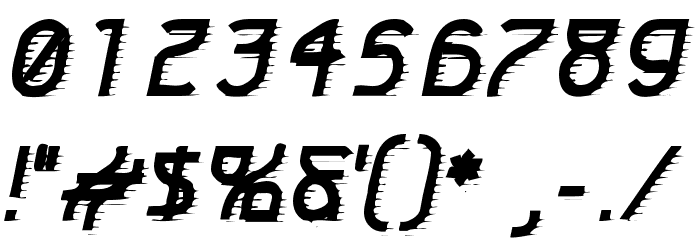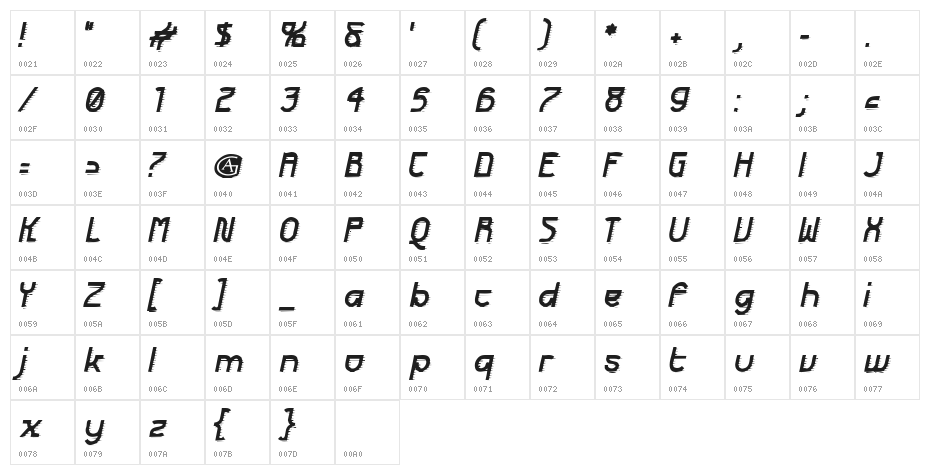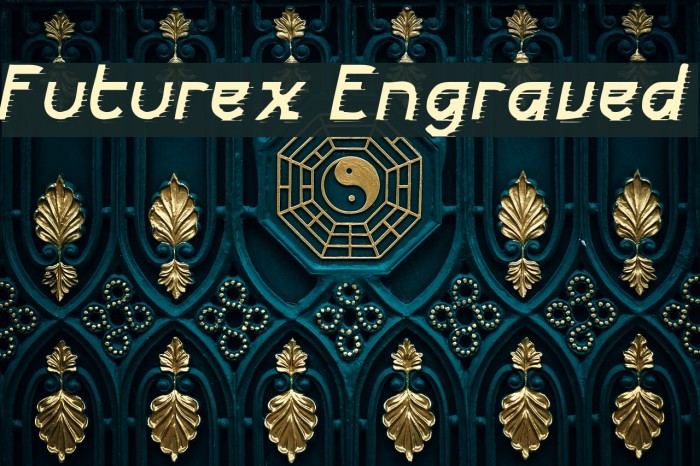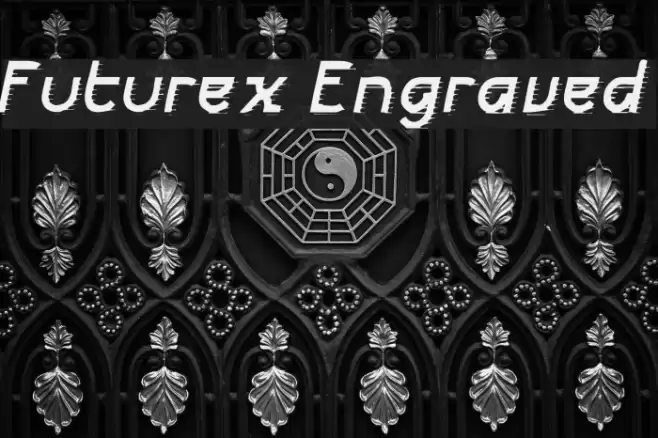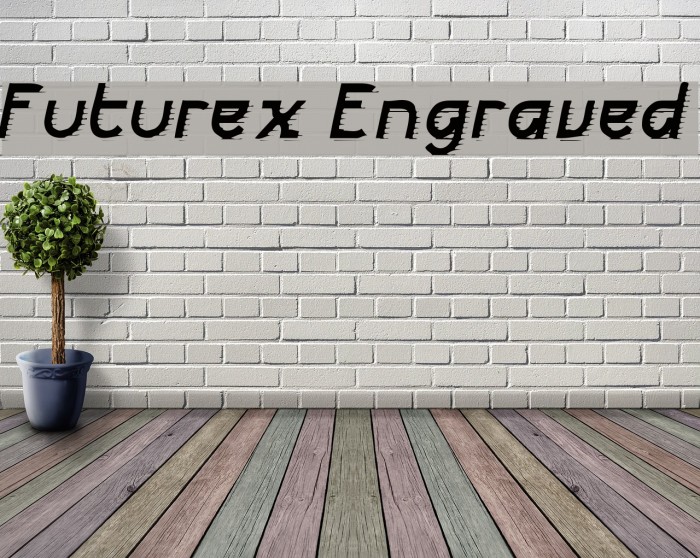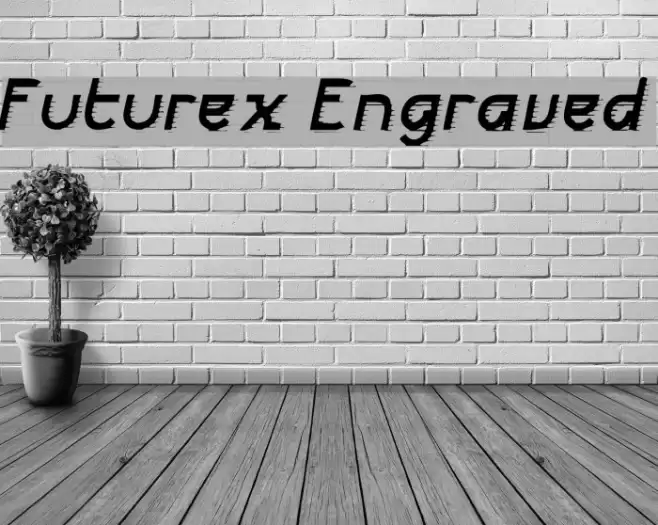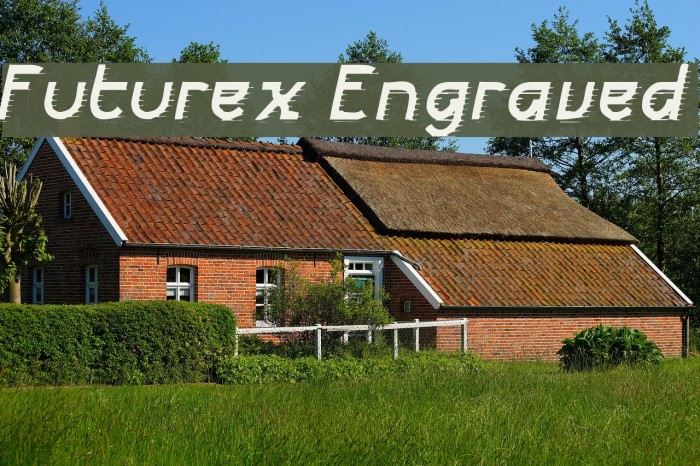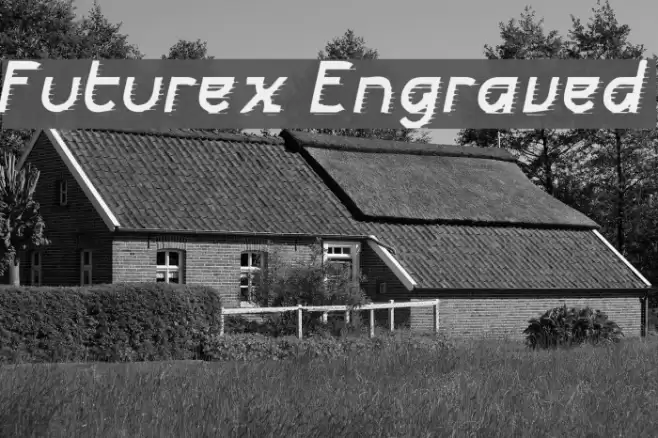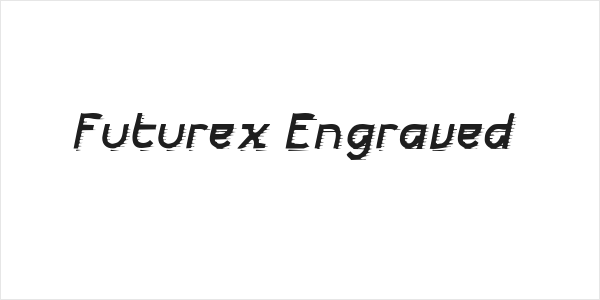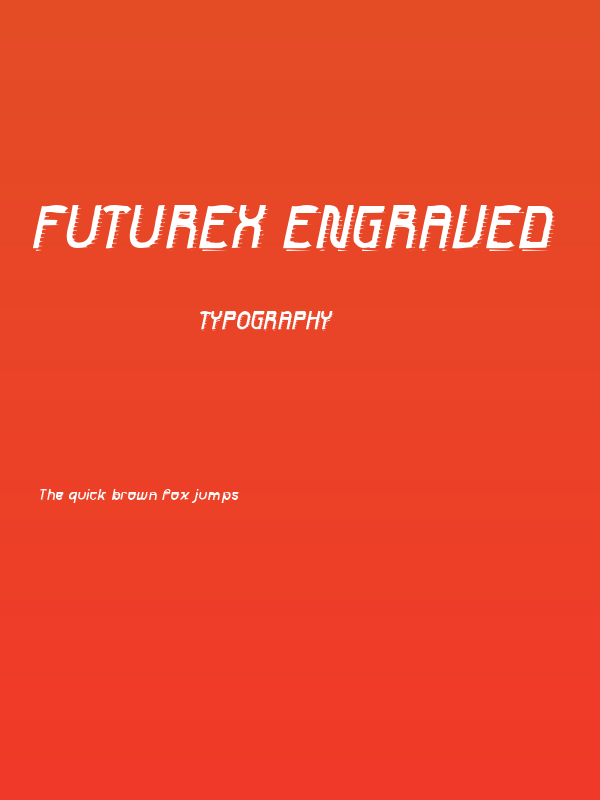
Futurex Engraved Font
Futurex Engraved Description
This font features a dynamic and futuristic design with an engraved effect that gives each character a sense of depth and movement. The uppercase and lowercase letters are crafted with sharp, angular lines that create a sense of speed and modernity. The numbers and special characters maintain this aesthetic, ensuring consistency across all elements. The engraved detailing adds a unique texture, making it stand out in any design. This font is ideal for projects that require a bold and innovative look, capturing attention with its distinctive style.
| Proposed Projects | Ideal for sci-fi themed designs, technology branding, video game titles, and modern advertising. |